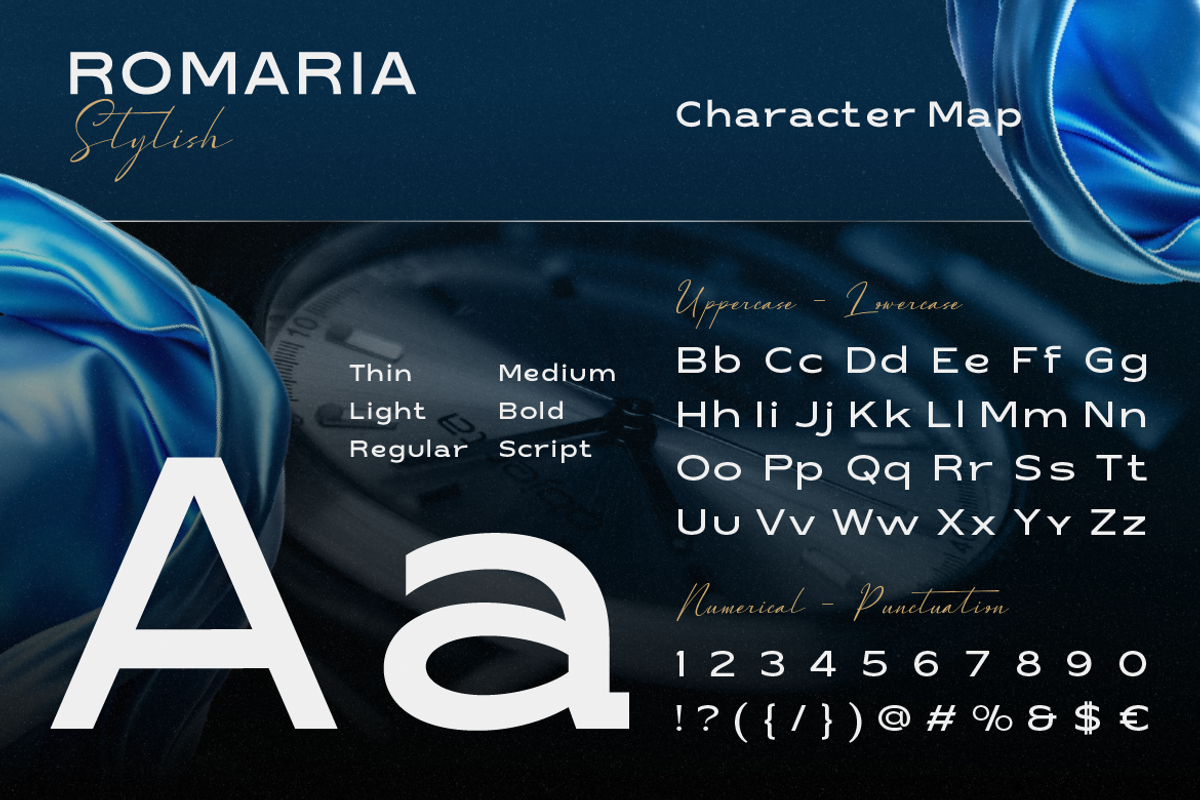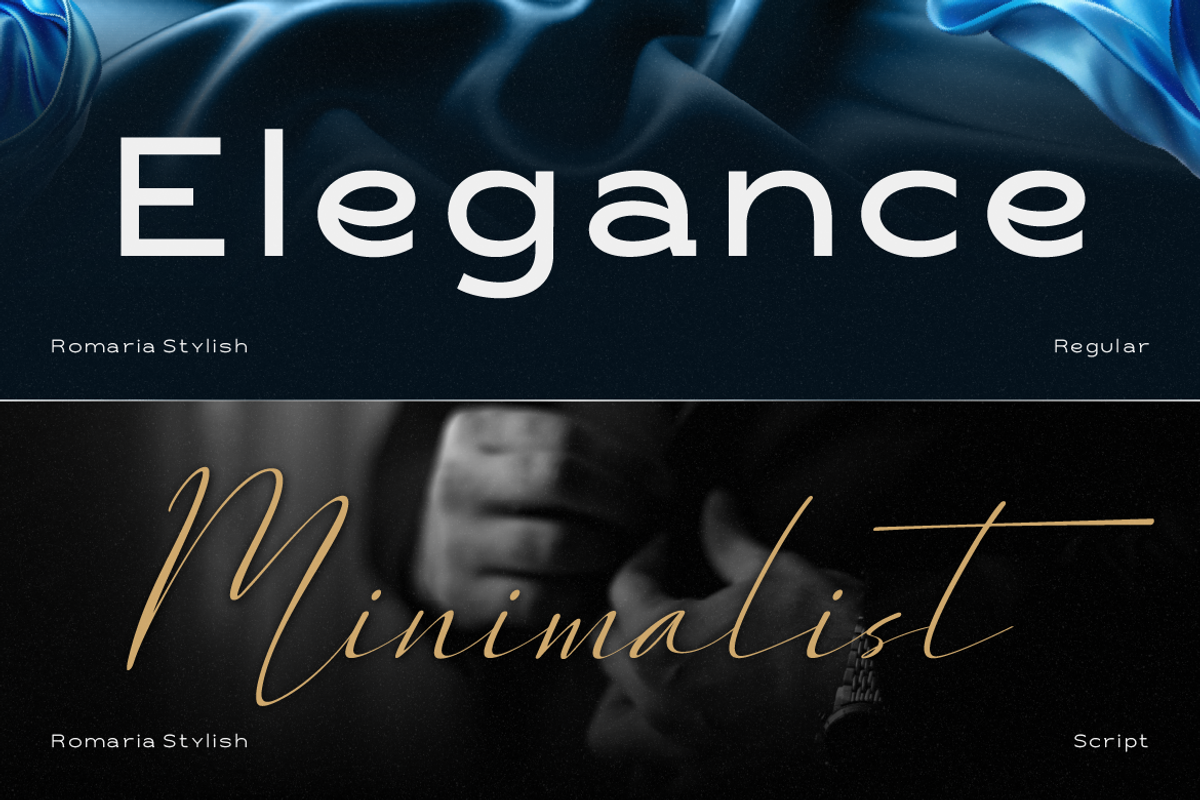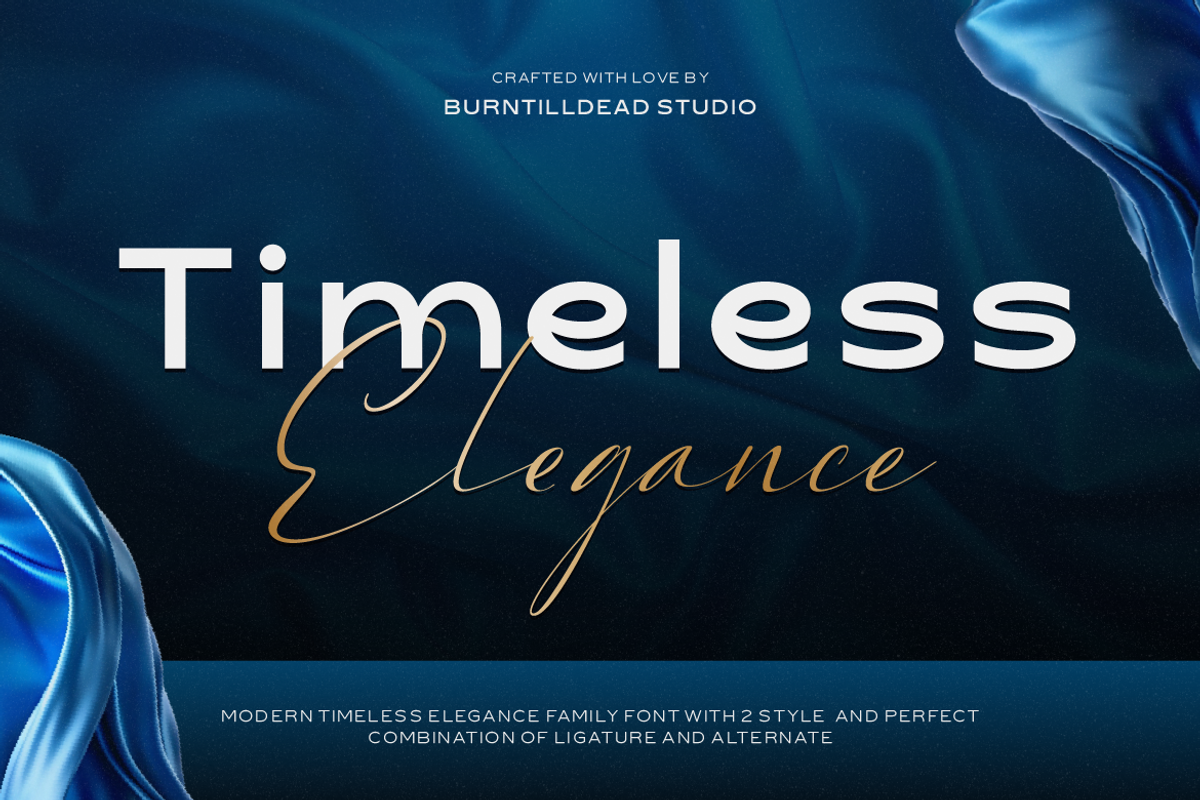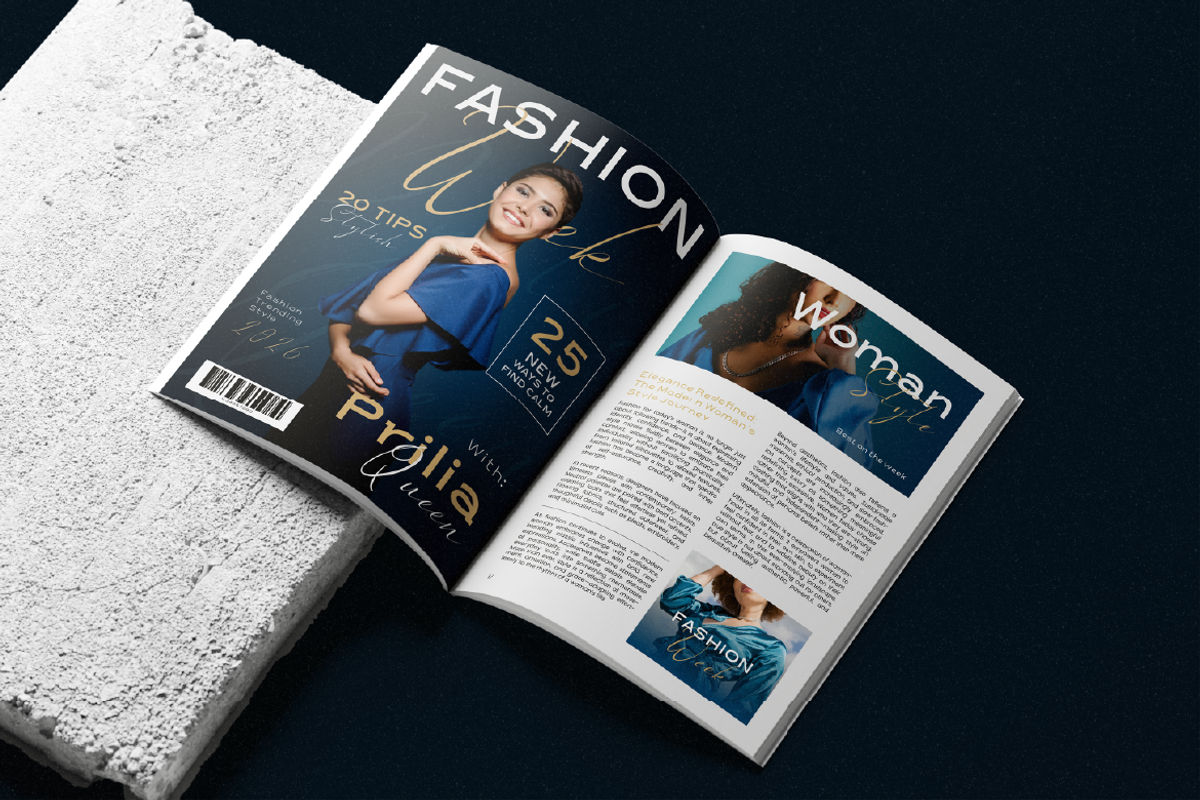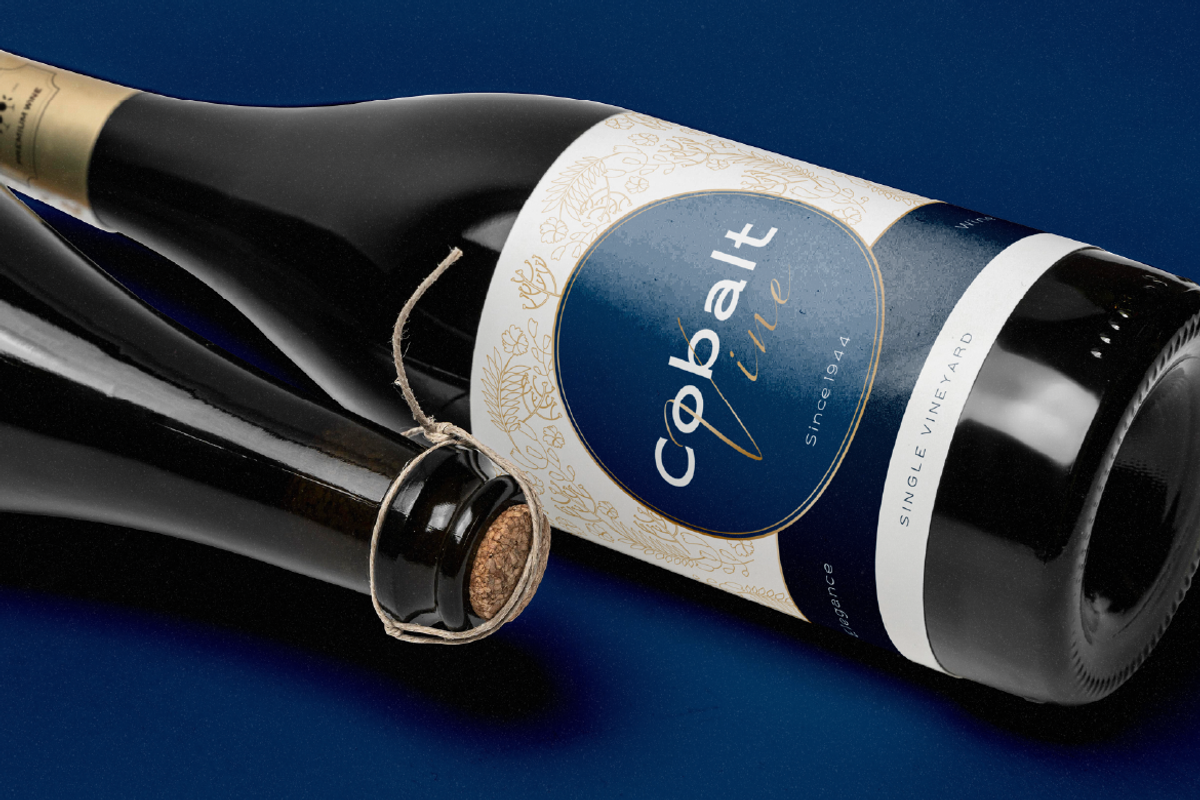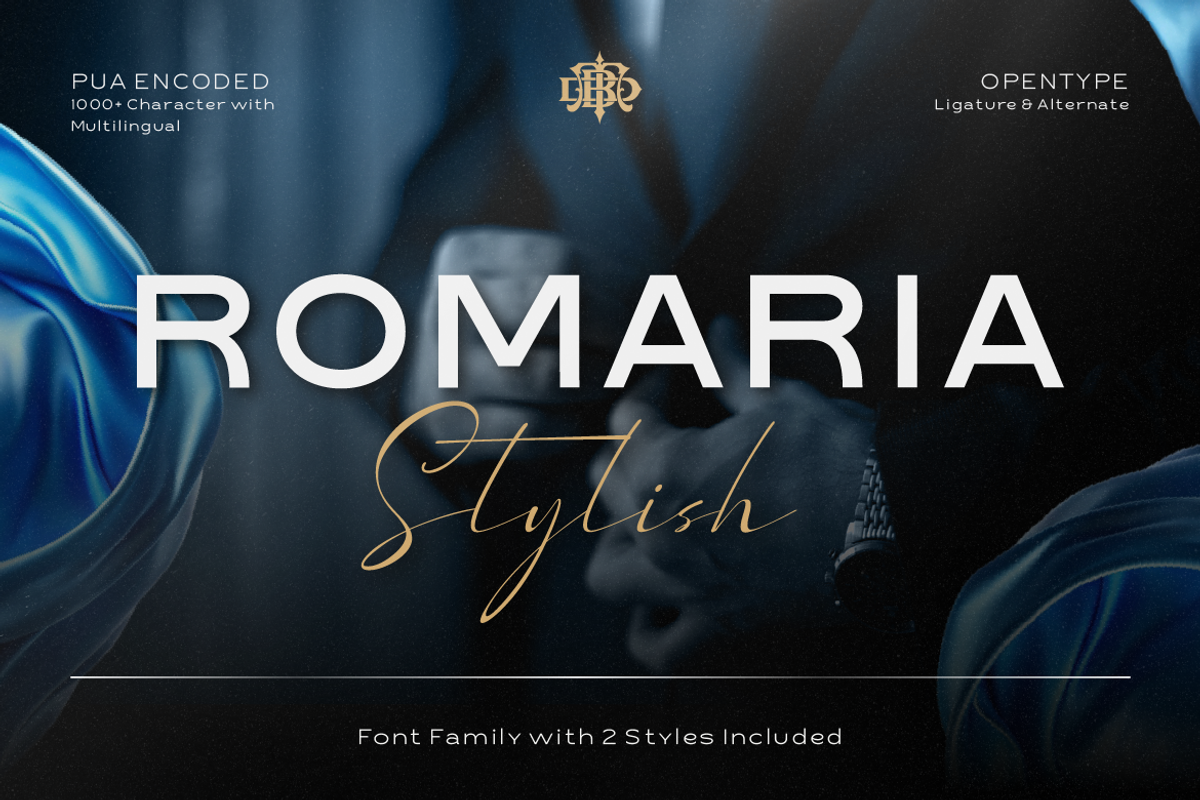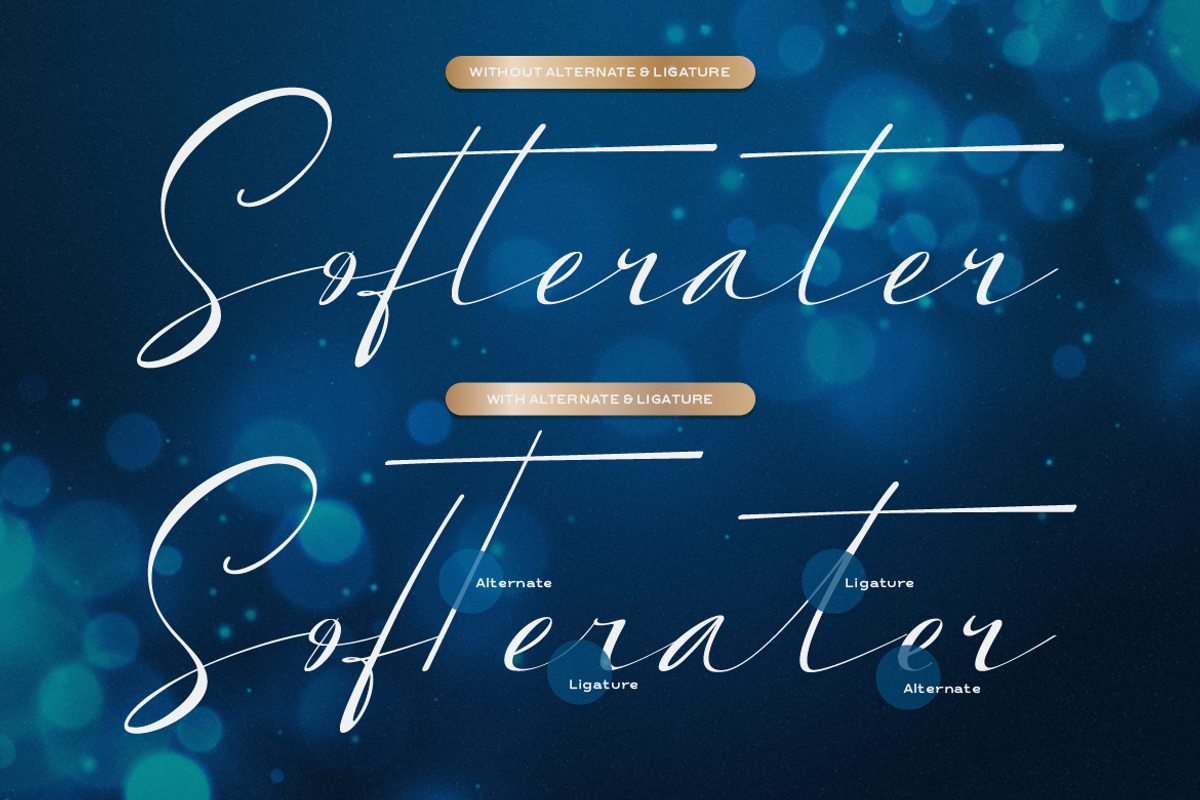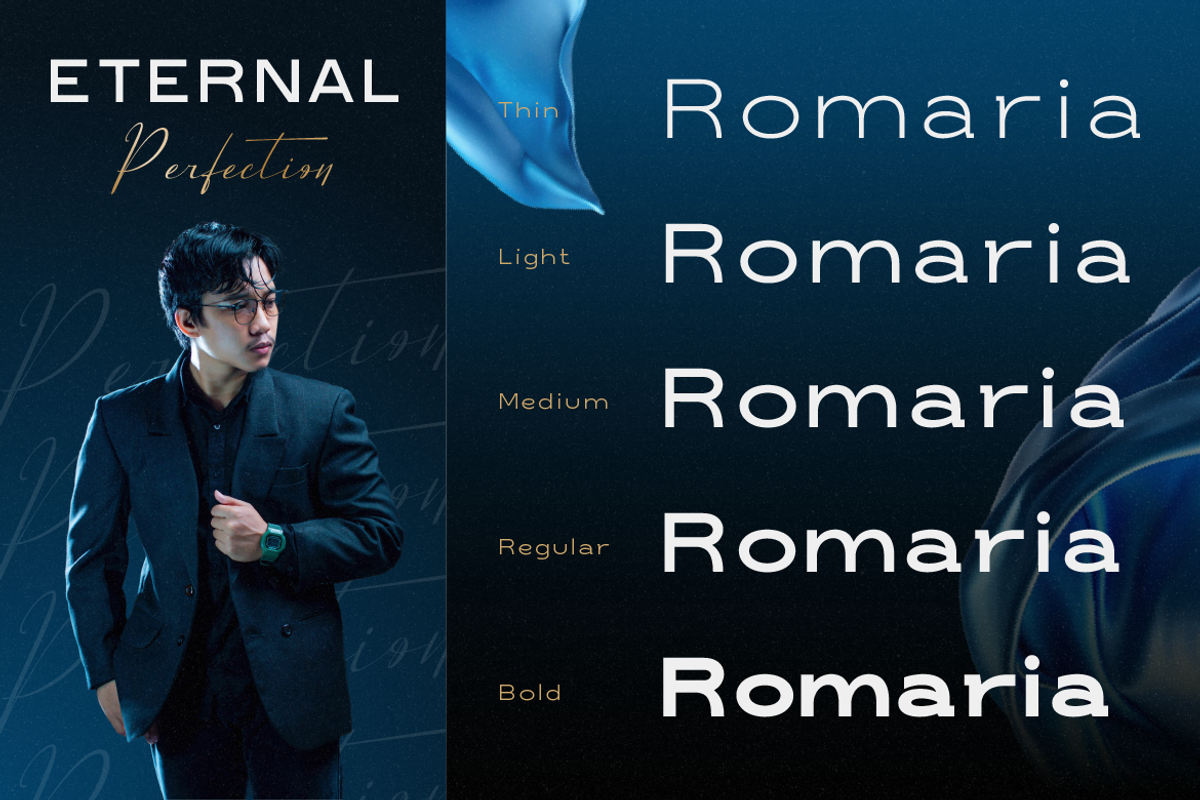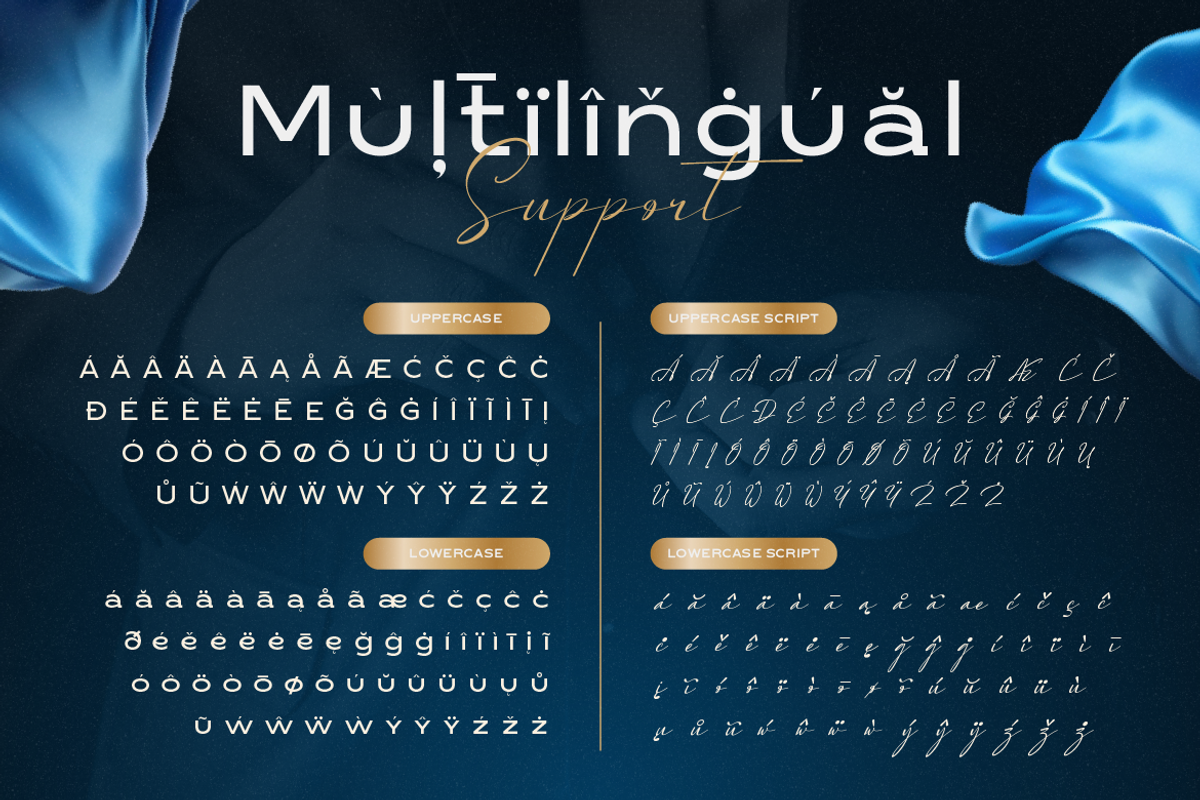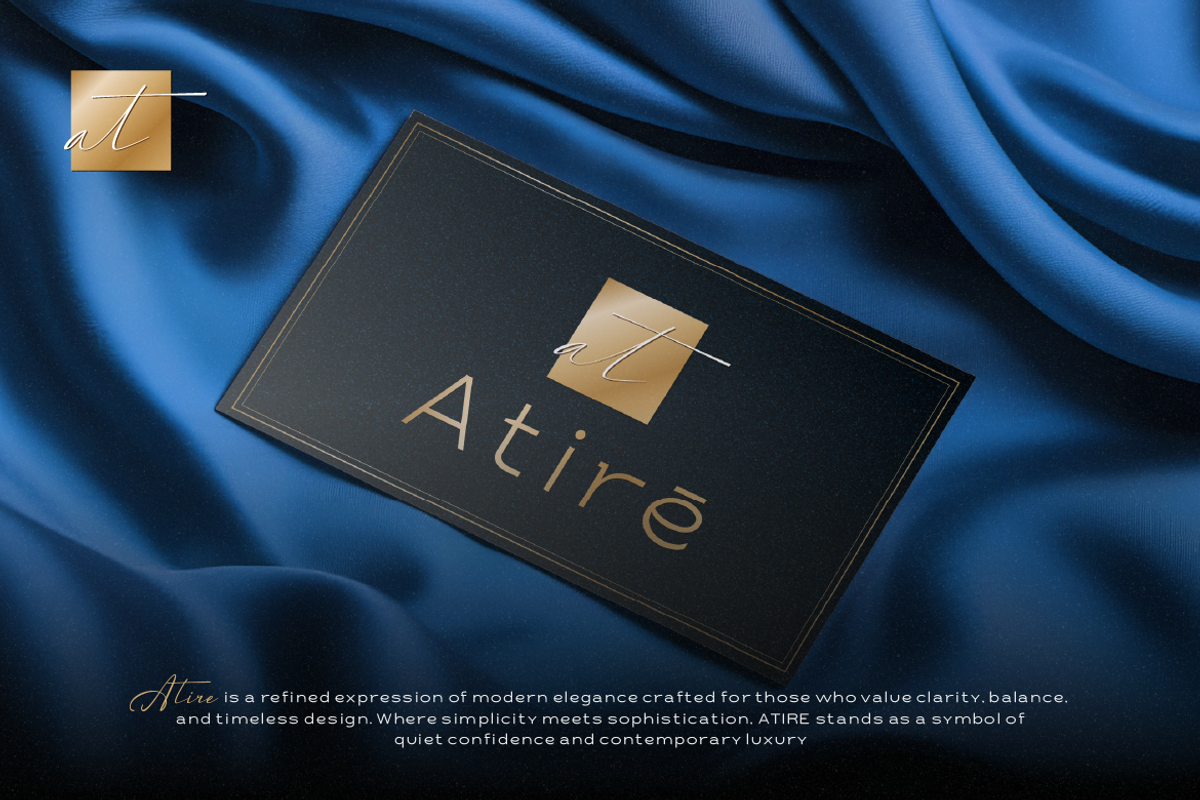
Romaria Stylish
Romaria Stylish is a modern elegant typeface designed to express timeless sophistication with a clean, contemporary touch. Crafted for designers who love clarity, balance, and refined aesthetics, Romaria brings a quiet confidence to every design. This font family comes with two styles, a sleek sans serif and a graceful script, allowing you to create beautiful contrast in a single layout. Perfectly paired, they work harmoniously for luxury branding, editorial design, fashion projects, and premium product presentations. Whether you’re designing a watch brand, perfume label, magazine layout, wedding stationery, or modern lifestyle branding, Romaria Stylish delivers a polished and timeless look with effortless elegance.
Food & beverage branding
Menu designs
Posters & flyers
Packaging design
Quotes, stickers & playful headlines
A - Z set (Uppercase & Lowercase)
Number
Romaria Stylish Characters Map